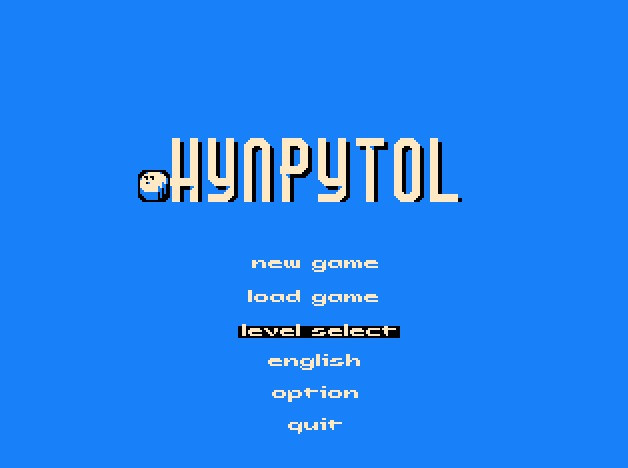
Squbitzplus Font
Squbitzplus Font is a stunning display font with a retro bitmap look. This font is perfect for pixel art and 8bit games. It’s also good for any design project which requires that nostalgic vintage feeling.
basic UI font of the game ‘HYNPYTOL’
Lowercase letters look better than uppercase ones.